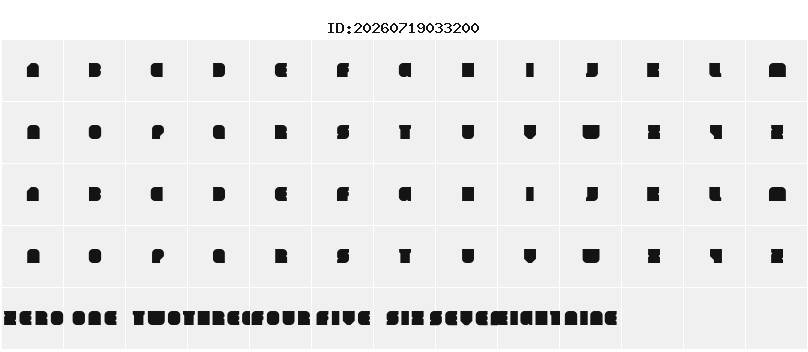
Construct Preview
• Font Name: Construct
• Designer: Doug Sheets
• Manufacturer: Doug Sheets
About Construct.ttf
Construct.ttf is a modern, elegant sans-serif font designed for ultimate readability and visual harmony. Perfect for branding, headlines, web design, and print materials.